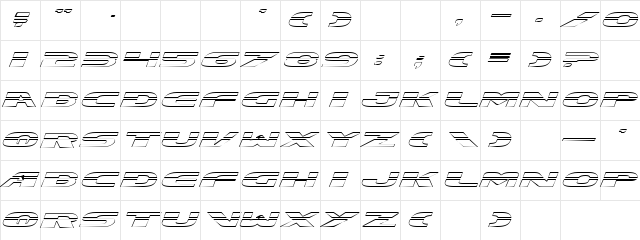
Nice Try Regular
Design Context for Nice Try Typeface
Nice Try is a composed and adaptable typeface that performs quietly and consistently across a wide range of design contexts.